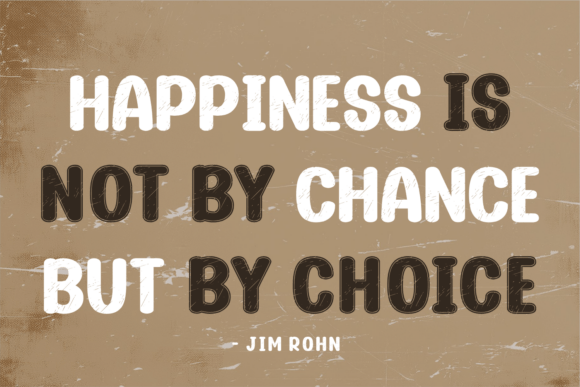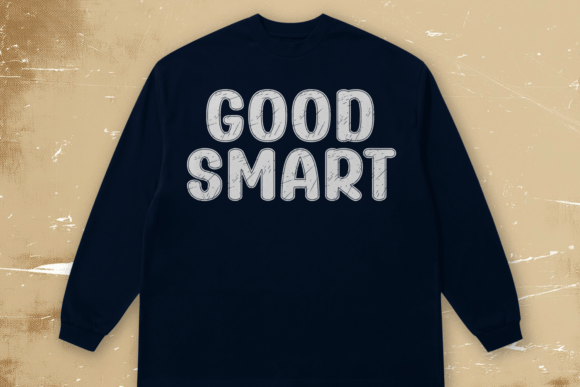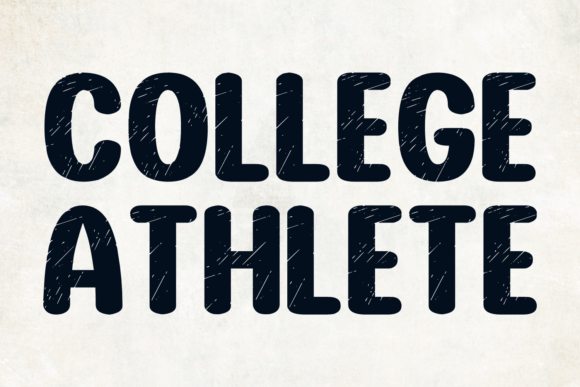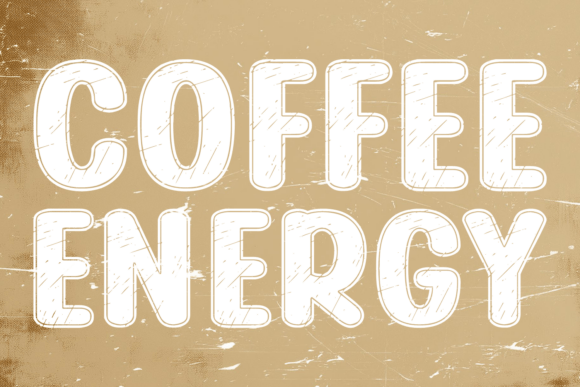
Introducing Always Vintage Font: The Ultimate Retro-Inspired Display Font Duo
Are you a designer or crafty enthusiast looking for a font that embodies the essence of vintage charm? Look no further than Always Vintage Font, a bold and retro-inspired display font duo that’s perfect for creating stunning vintage logos, packaging, posters, signage, and retro apparel branding.
The Perfect Blend of Rugged Texture and Old-School Charm
Always Vintage Font is designed to bring back the nostalgia of a bygone era. Its weathered details and classic lettering style evoke a sense of ruggedness and authenticity, making it perfect for projects that require a touch of vintage flair. The font duo consists of two complementary fonts: a filled version and an outlined version, offering versatility and flexibility in your design endeavors.
Key Features of Always Vintage Font
- Bold and Retro-Inspired Design: Always Vintage Font boasts a bold and eye-catching design that’s reminiscent of vintage signs, posters, and logos.
- Rugged Texture and Weathered Details: The font’s rugged texture and weathered details add a layer of authenticity to your designs, giving them a worn and aged look.
- Classic Lettering Style: The font’s classic lettering style is inspired by traditional sign-painting and lettering techniques, making it perfect for vintage-themed projects.
- Versatile Font Duo: The font duo includes both filled and outlined versions, allowing you to experiment with different design styles and applications.
Use Cases for Always Vintage Font
Always Vintage Font is an incredibly versatile font that can be used in a wide range of design projects, including:
- Vintage Logos: Create stunning vintage logos that evoke a sense of nostalgia and authenticity.
- Packaging Design: Add a touch of vintage charm to your packaging designs, making them stand out on store shelves.
- Posters and Signage: Use Always Vintage Font to create eye-catching posters and signage that grab attention.
- Retro Apparel Branding: Create bold and stylish retro-inspired apparel branding that appeals to customers looking for a vintage aesthetic.
Tips for Using Always Vintage Font
To get the most out of Always Vintage Font, here are some tips to keep in mind:
- Experiment with Different Colors: Try pairing Always Vintage Font with bold and bright colors to create a striking contrast.
- Play with Texture and Patterns: Add an extra layer of depth to your designs by incorporating textures and patterns that complement the font’s rugged texture.
- Mix and Match with Other Fonts: Combine Always Vintage Font with other fonts to create a unique and visually appealing typography.
Always Vintage Font is a bold and retro-inspired display font duo that’s perfect for designers and crafty enthusiasts looking to add a touch of vintage charm to their projects. With its rugged texture, weathered details, and classic lettering style, this font duo is sure to evoke a sense of nostalgia and authenticity. Whether you’re creating vintage logos, packaging, posters, signage, or retro apparel branding, Always Vintage Font is the perfect choice.